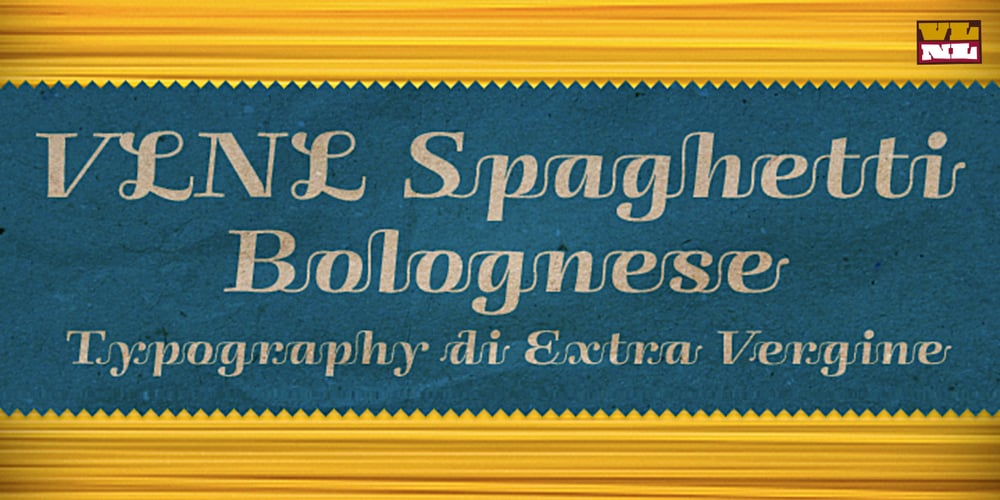
VLNL Spaghetti Font Family was designed by Donald Roos and published by VetteLetters. VLNL Spaghetti contains 1 styles and family package options. Originally drawn in 1999 as a college project with the ambition to make the ‘most beautiful’ alphabet in the world. After these heroic beginnings Spaghetti lay dormant in the VLNL vaults for many years, appearing to silently peter away. Now look at it! Ten years hence, it is finally being served up in glorious OpenType, precisely al dente. As automated special sauce, each lowercase character before or after a space receives a nice little ball ending to round things off. And finally, the parmesan cheese sprinkled on top is like a tasty bunch of ligatures – enough to make your mouth water.